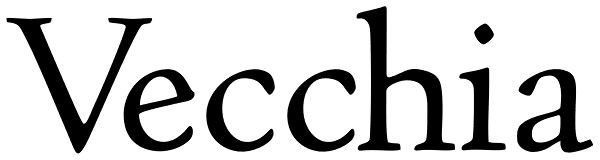
Vecchia
This font looks forward to the humanist venetian oldstyle flavor. With high contrast and nice modulation, it has low x height wich is ideal for reading and to design books or long texts. Vecchia has a calligraphic basis and counts with small caps...